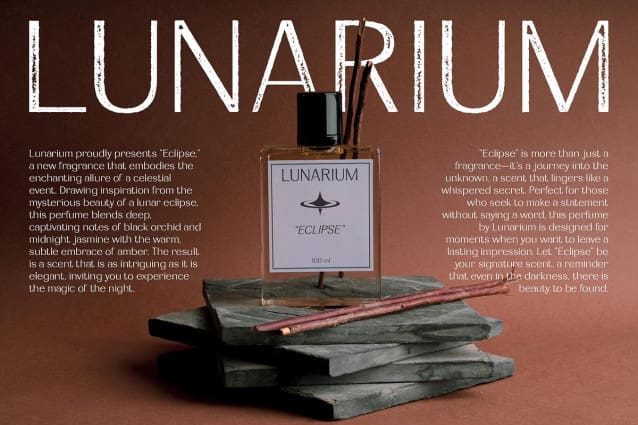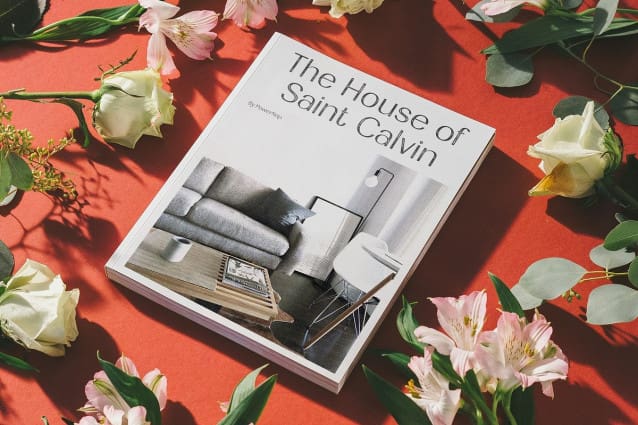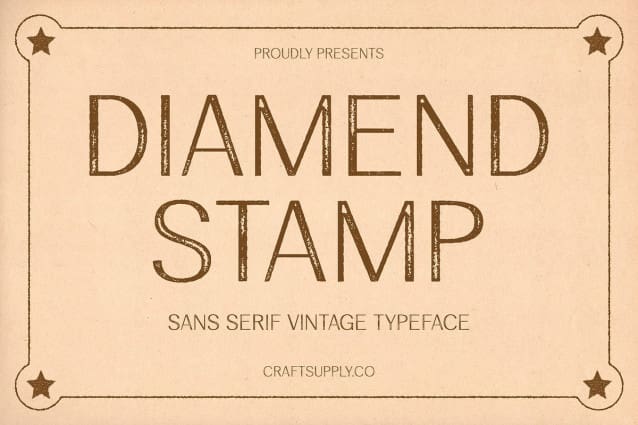
Diamend Stamp Font
Diamend Stamp Font is a modern sans-serif font characterized by its sleek, minimalist forms that exude elegance and sophistication. Its refined lines and subtle detailing provide a clean and contemporary appearance, making it ideal for upscale branding and sophisticated design projects.
Distinctive Stamp Effect The stamp effect adds a unique, textured detail to the font, introducing an element of artistic flair. This distinctive feature enhances the font’s visual interest and sets it apart, providing a blend of contemporary simplicity and creative character.
Perfect for High-End Branding and Stylish Materials Diamend Stamp excels in high-end branding, stylish promotional materials, and other sophisticated design applications. Its combination of modern elegance and distinctive texture ensures it stands out in any context, offering both clarity and artistic appeal.
Enhance Your Design Add a touch of refined artistry to your projects with Diamend Stamp. Its blend of sleek, minimalist forms and unique stamp effect provides a perfect balance of elegance and individuality, making it a standout choice for any contemporary design.